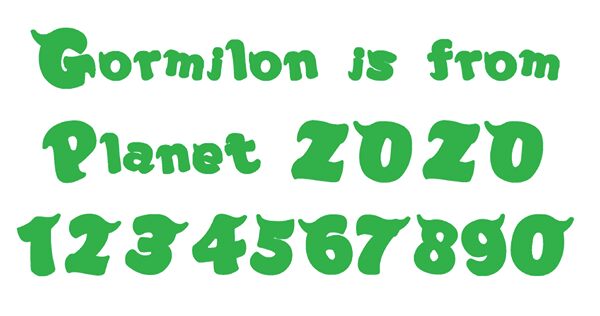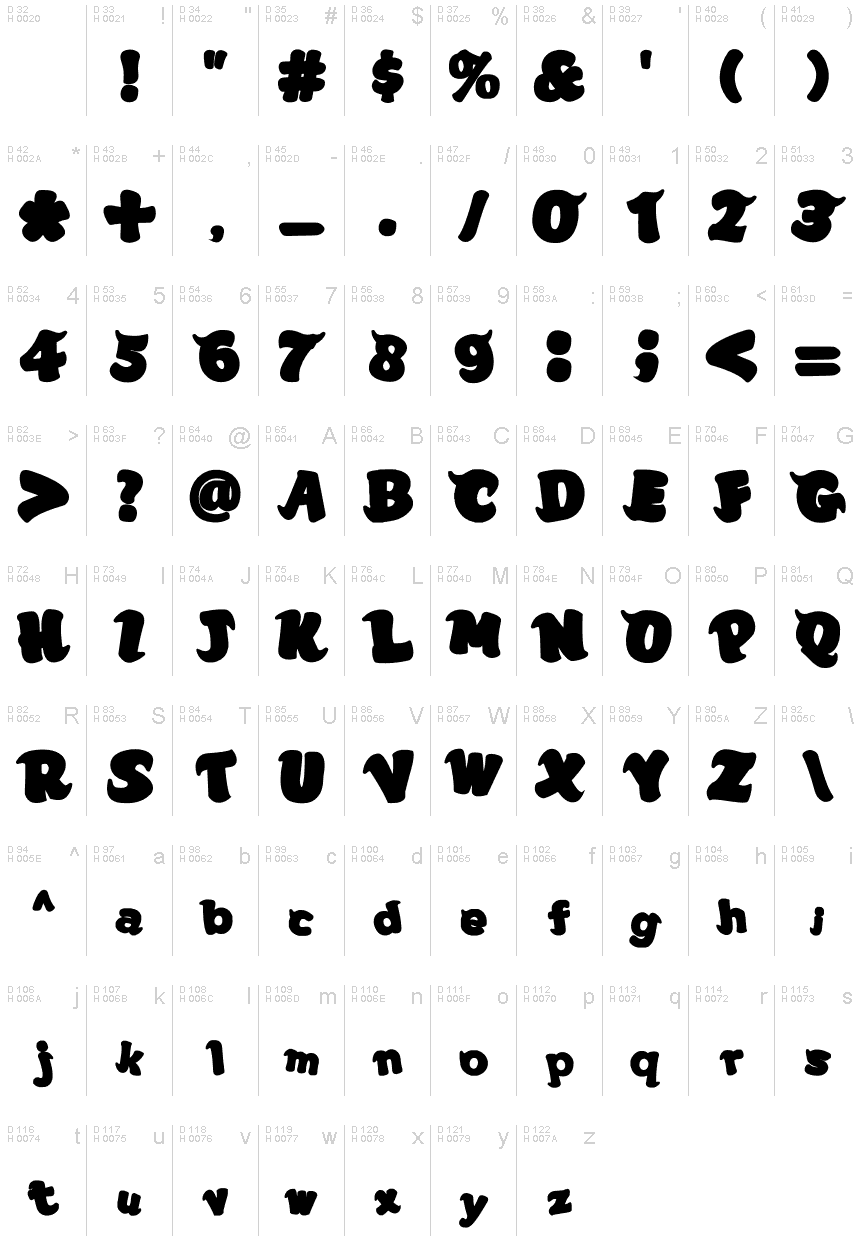
Planet ZOZO Spikes
Planet ZOZO Spikes is a playful and energetic display font from the Planet ZOZO font family. Designed by Planet ZOZO, this extra-bold, semi-expanded typeface is perfect for projects that require a fun and comic touch. Its unique spikes add a dynamic element to any text, making it suitable for projects such as children's books, party invitations, and social media graphics. Whether you're looking to create eye-catching headlines or add some personality to your branding materials, Planet ZOZO Spikes is sure to make your message stand out. Get ready to inject some fun into your designs with this lively font!